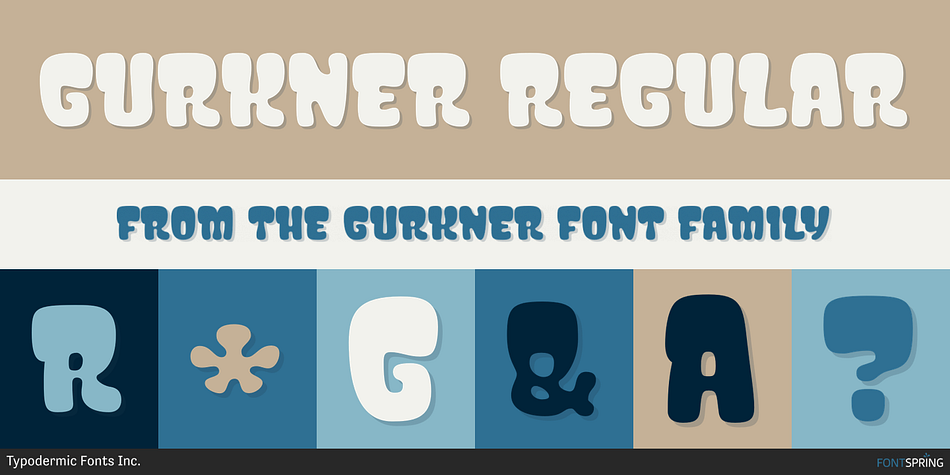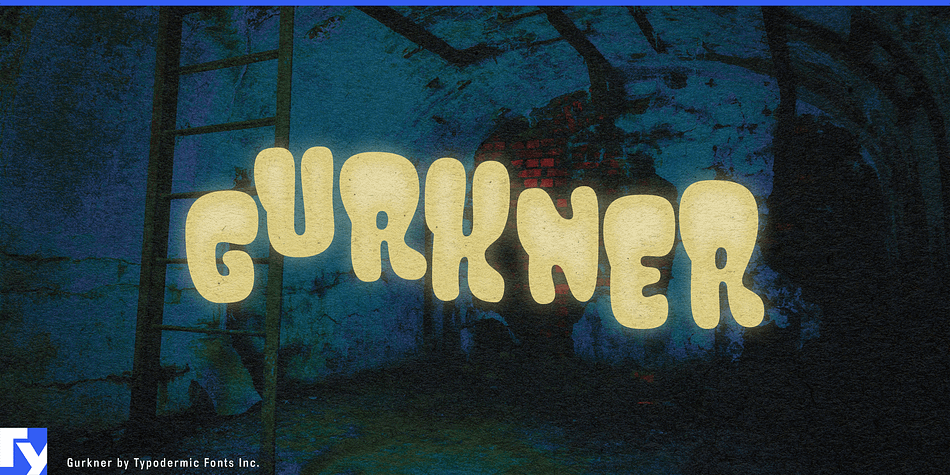
GURKNER REGULAR
Gurkner is a kids and retro font family. This typeface has two styles and was published by Typodermic Fonts Inc.
The spirits have spoken! Introducing Gurkner—the bouncy, round display typeface with two distinct personalities. Say hello to well-behaved Gurkner—the ghost that always follows the rules and marches in a straight line like a row of obedient Caspers. But beware, because there’s also a mischievous side to Gurkner – a poltergeist on crack that loves to play pranks and bounce around like there’s no tomorrow!
What sets Gurkner apart is its customizable pairings that automatically swap to create unique combinations for a more natural, springy look. It’s like having your very own ghostly friend who’s always up for a good time.
Whether you’re designing for Halloween or just want to add some spooky fun to your project, Gurkner is the perfect typeface for adding a playful touch. So don’t be afraid to let loose and embrace the silly side of Gurkner. After all, who doesn’t love a font that’s equal parts mischievous and well-behaved?